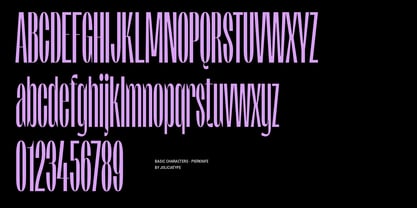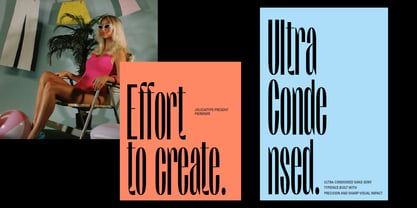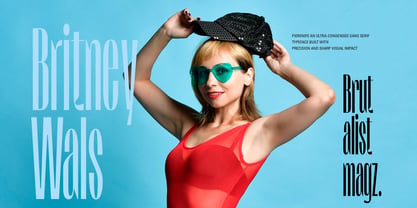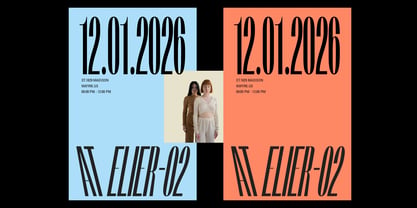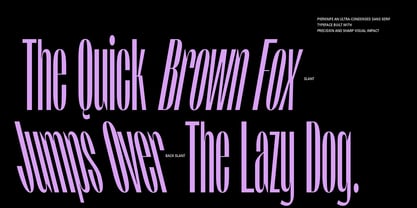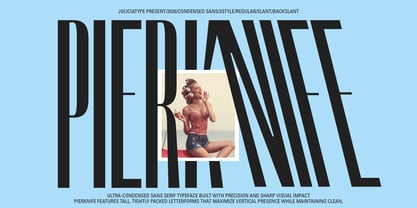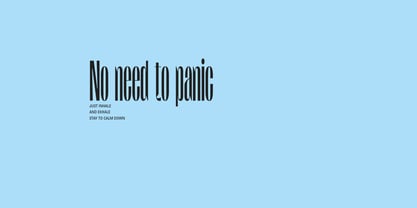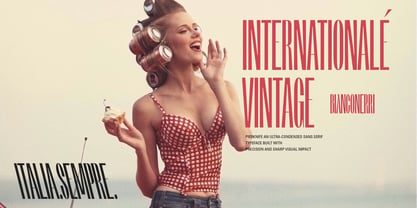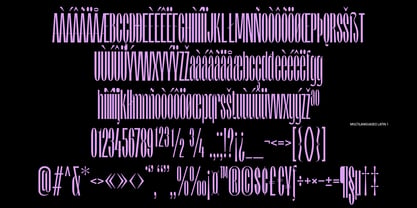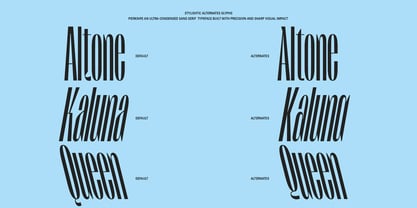
Pierknife
The Pierknife Font Family was designed by Laire Banyu and published by Jolicia Type. Pierknife contains 3 styles and family package options. More about this family
Pierknife is a thin ultra-condensed sans serif typeface that masterfully balances sharp modern precision with subtle vintage character. With its tall, narrow proportions and clean structural rhythm, it delivers a sleek contemporary presence while remaining adaptable to retro-inspired compositions. The refined letterforms feature crisp edges and carefully engineered ink traps, enhancing legibility at small sizes while adding distinctive technical detail. These ink traps improve functionality in both print and digital environments and introduce a subtle industrial accent, allowing the typeface to feel progressive in modern layouts and authentically tactile in vintage settings. Pierknife is available in three core styles: Upright, Slant, and Back Slant. Upright offers stability, clarity, and a confident modern tone. Slant leans forward, adding movement, speed, and dynamic energy. Back Slant tilts in the opposite direction, creating a distinctive retro attitude with a subtle unconventional edge. This directional contrast gives Pierknife unique flexibility, capable of appearing sharp and contemporary in minimalist compositions, yet expressive and nostalgic when paired with grain textures, muted color palettes, or vintage-inspired layouts. Ideal for headlines, branding, editorial design, posters, packaging, and visual identities that demand a tall, striking typographic voice, Pierknife is not just ultra-condensed; it’s versatile, character-driven, and stylistically adaptable across eras.